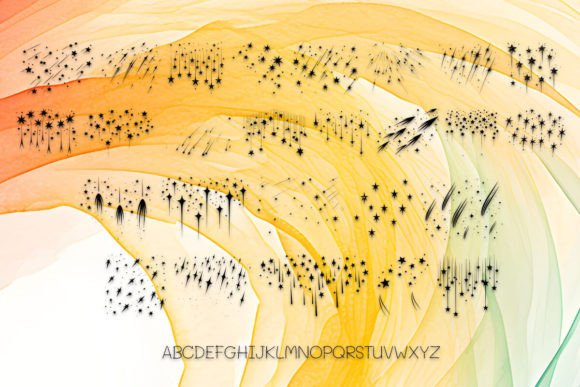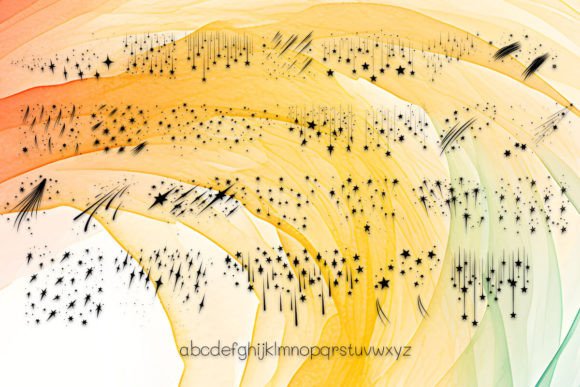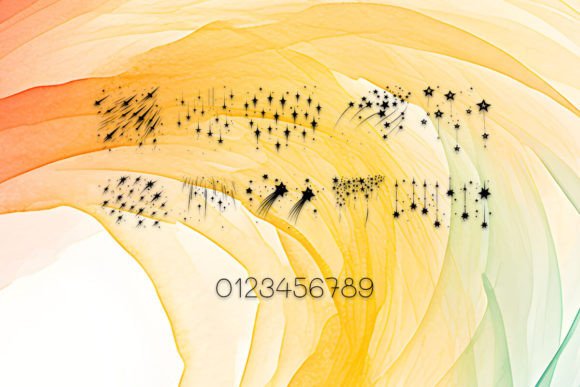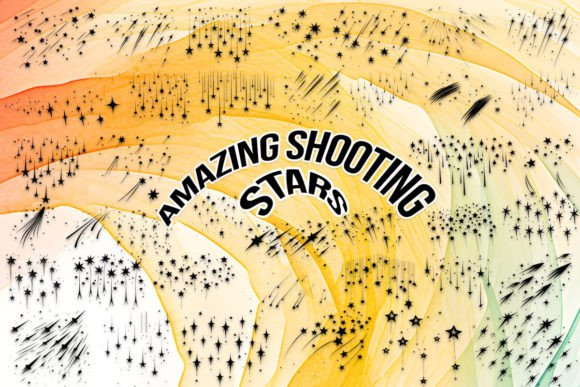
The Magic of Shooting Stars: A Font that Brings the Cosmos to Your Designs
I’ll never forget the night I was working on a project for a client who wanted a whimsical, celestial theme. I was struggling to find the right font to bring their vision to life. That’s when I stumbled upon the Amazing Shooting Stars Font, and it was like a shooting star itself – it lit up my design world! ✨ In this article, I’ll share my experience with this enchanting font, its features, and how to make the most of it in your designs.
Here’s what I love about the Amazing Shooting Stars Font:
• ✨ Celestial Symbols Galore: 62 symbols, including 26 uppercase letters, 26 lowercase letters, and 10 numbers, give you plenty of creative options.
• 🌠 Cosmic Aesthetic: The font’s design is inspired by shooting stars, adding a touch of magic to your projects.
A few quirks to keep in mind:
• ⚠️ Limited Character Set: While the font has a good range of characters, it’s primarily designed for decorative use, so it might not be suitable for body text.
• 🤔 Glyphs Can Be Finicky: Some glyphs might require a bit of tweaking to get them to work perfectly in certain design programs.
The Story Behind the Font: Designer Inspiration
The Amazing Shooting Stars Font was created by a designer who wanted to capture the magic of celestial events. Inspired by the night sky and the fleeting moments of shooting stars, the designer crafted a font that would bring a touch of wonder to any design. The result is a collection of symbols and letters that evoke a sense of enchantment and curiosity.
Is the font suitable for body text? No, the Amazing Shooting Stars Font is primarily designed for decorative use and might not be suitable for large blocks of text.